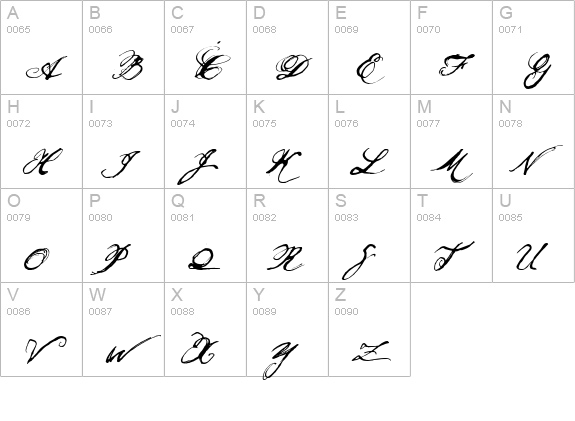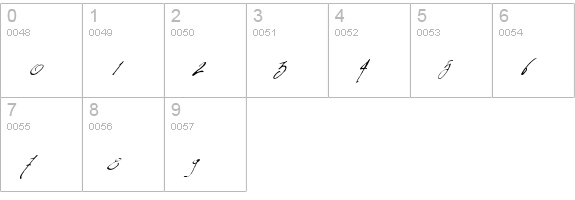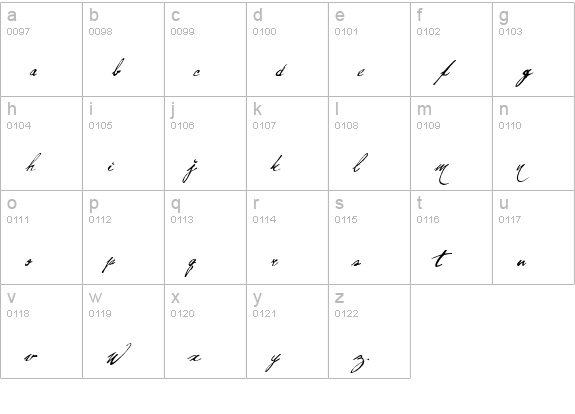
Olho de Boi Font Details
Olho de Boi font is a stunning and versatile typeface that is sure to captivate and inspire. Its elegant and timeless design makes it ideal for a wide range of creative projects, from branding and advertising to editorial and web design. With its intricate details and clean lines, Olho de Boi font exudes a sense of sophistication and class. Its beautifully crafted letterforms and unique ligatures add a touch of elegance to any text, while its generous spacing ensures readability and legibility. What sets Olho de Boi font apart is not only its remarkable aesthetics but also its accessibility. This font is freely available to download at FontsMarket.com, allowing designers and creatives from all walks of life to utilize its beauty and charm without any limitations. Whether you're designing a logo for a luxury brand, creating stunning headlines for a magazine spread, or crafting an eye-catching website, Olho de Boi font is the perfect choice to elevate your project to new heights. Its versatility and timeless appeal make it a valuable asset in any designer's toolkit. So why wait? Embrace the beauty and elegance of Olho de Boi font and download it for free today at FontsMarket.com. Unleash your creativity and let this extraordinary typeface elevate your designs to a whole new level.